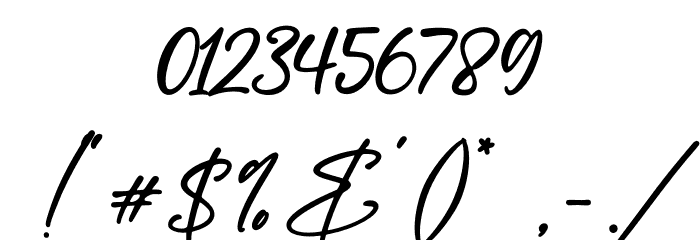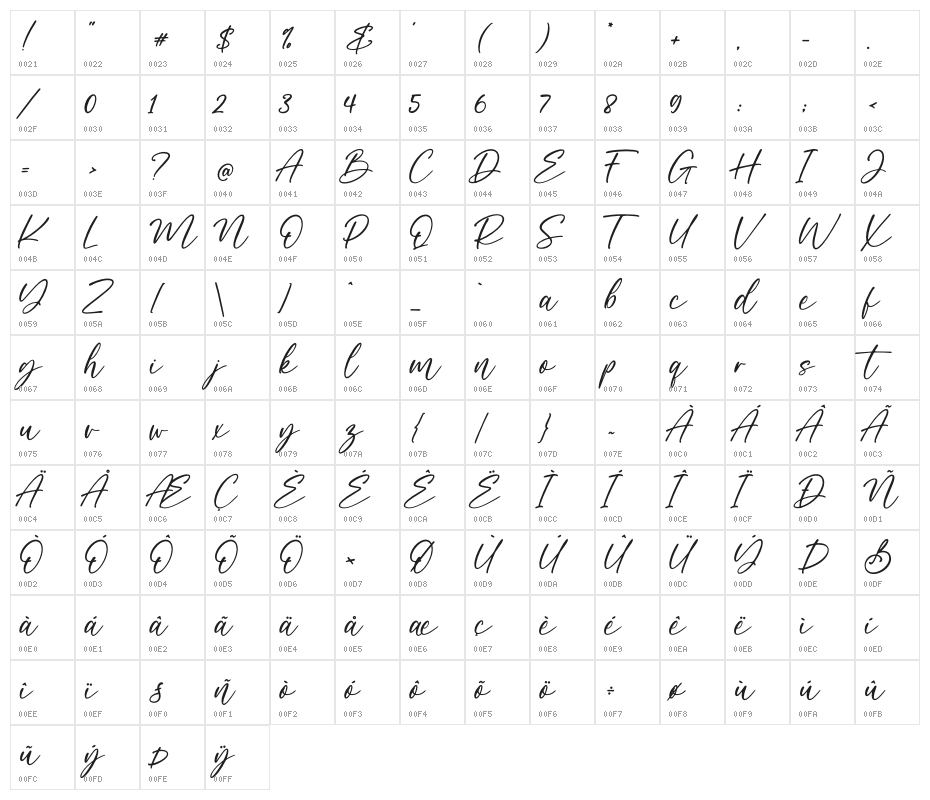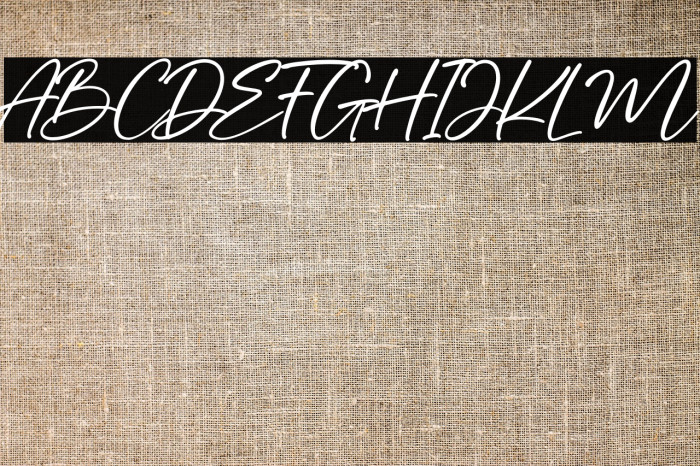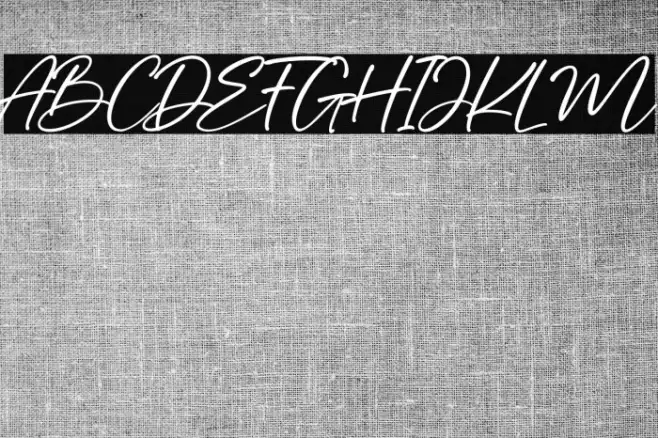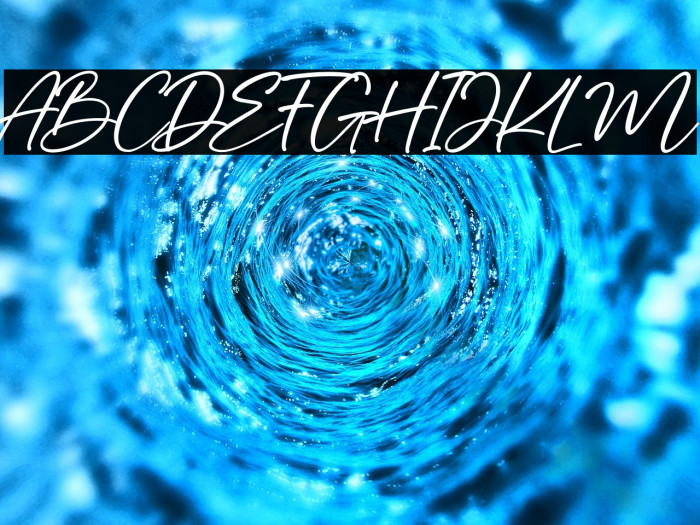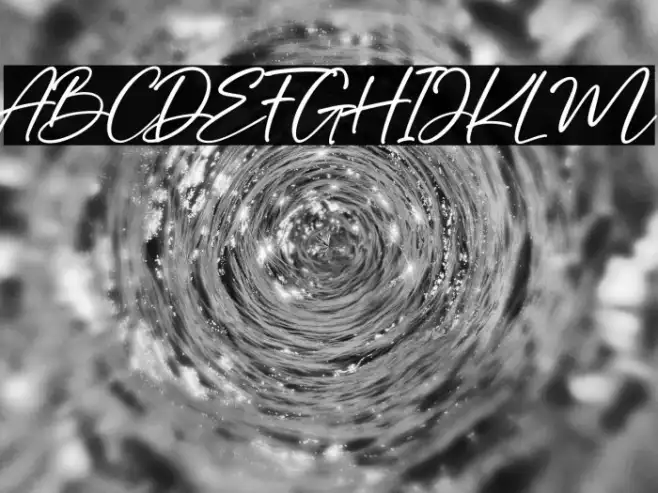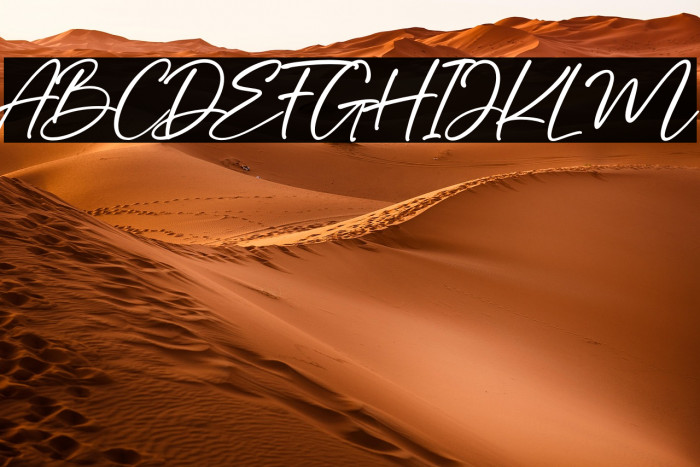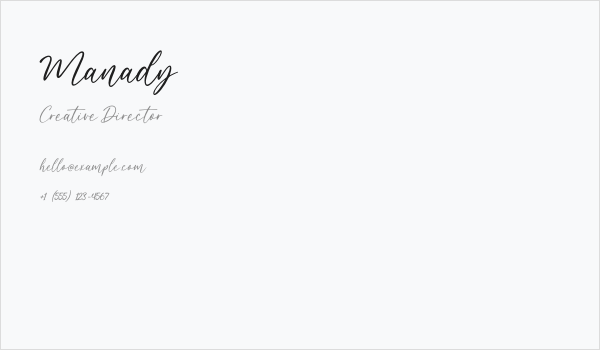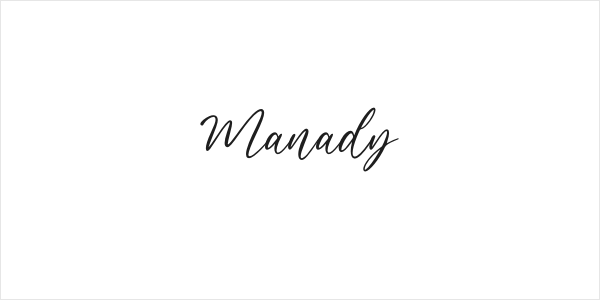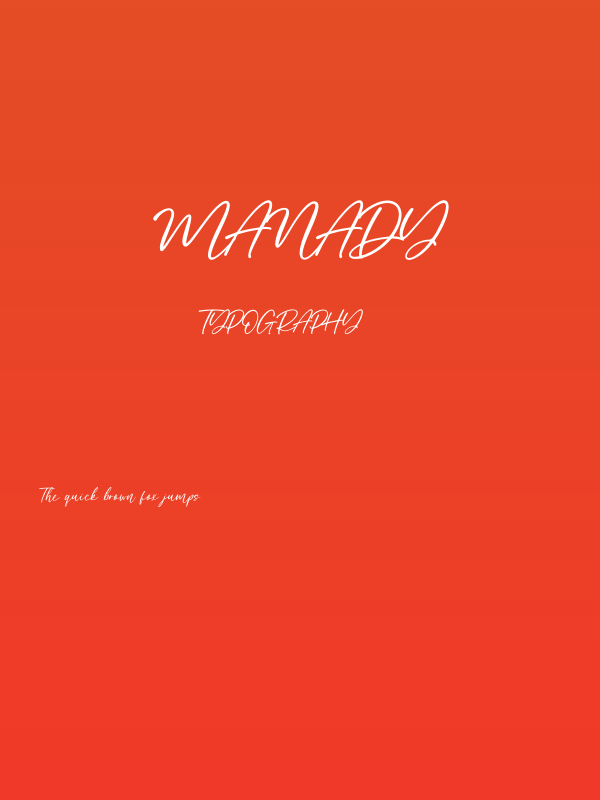
Manady Font
Manady Description
This font is a stylish and elegant script with a handwritten feel. The letters are fluid and connected, giving it a natural and personal touch. The uppercase letters are bold and expressive, while the lowercase letters maintain a consistent flow. The numbers and special characters are crafted to match the overall aesthetic, making it versatile for various design needs. The strokes are smooth and slightly varied in thickness, adding to its dynamic appearance. This font is perfect for projects that require a personal, artistic touch, such as invitations, greeting cards, or branding materials.
| Proposed Projects | Ideal for invitations, greeting cards, branding, and artistic projects. |